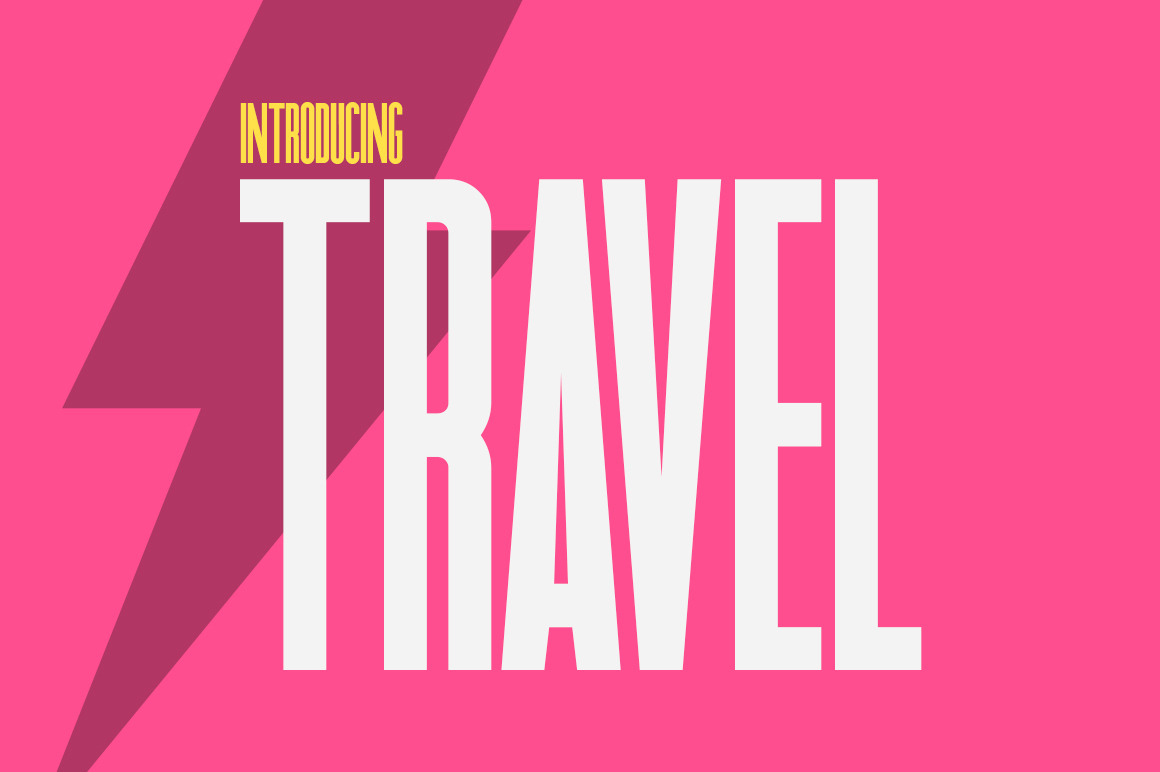
Travel Sans Font
Introducing Travel! A bold new font that stands head and shoulders above the rest! Let it take you on a trip around the world and help your designers becomes rounded travelers.